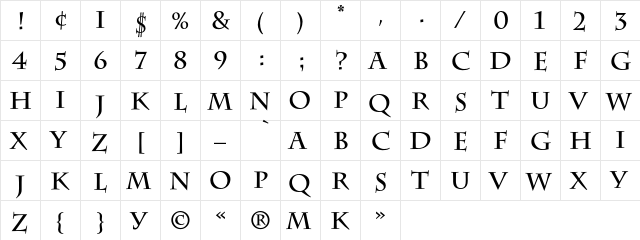
CharlemagneC Regular
Design Context for CharlemagneC Typeface
CharlemagneC is a composed and adaptable typeface that performs quietly and consistently across a wide range of design contexts.